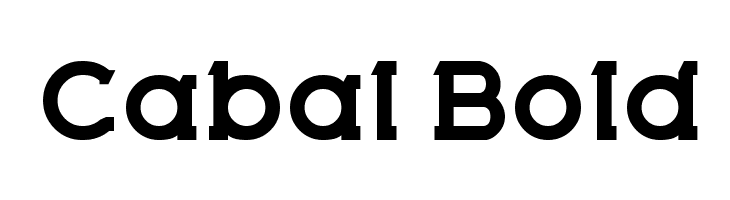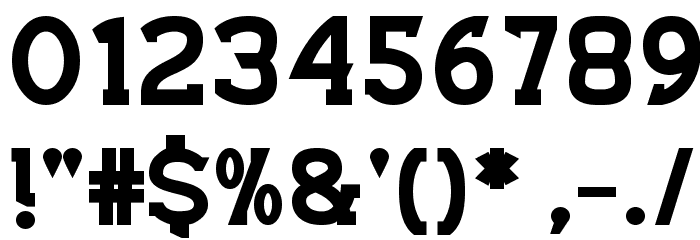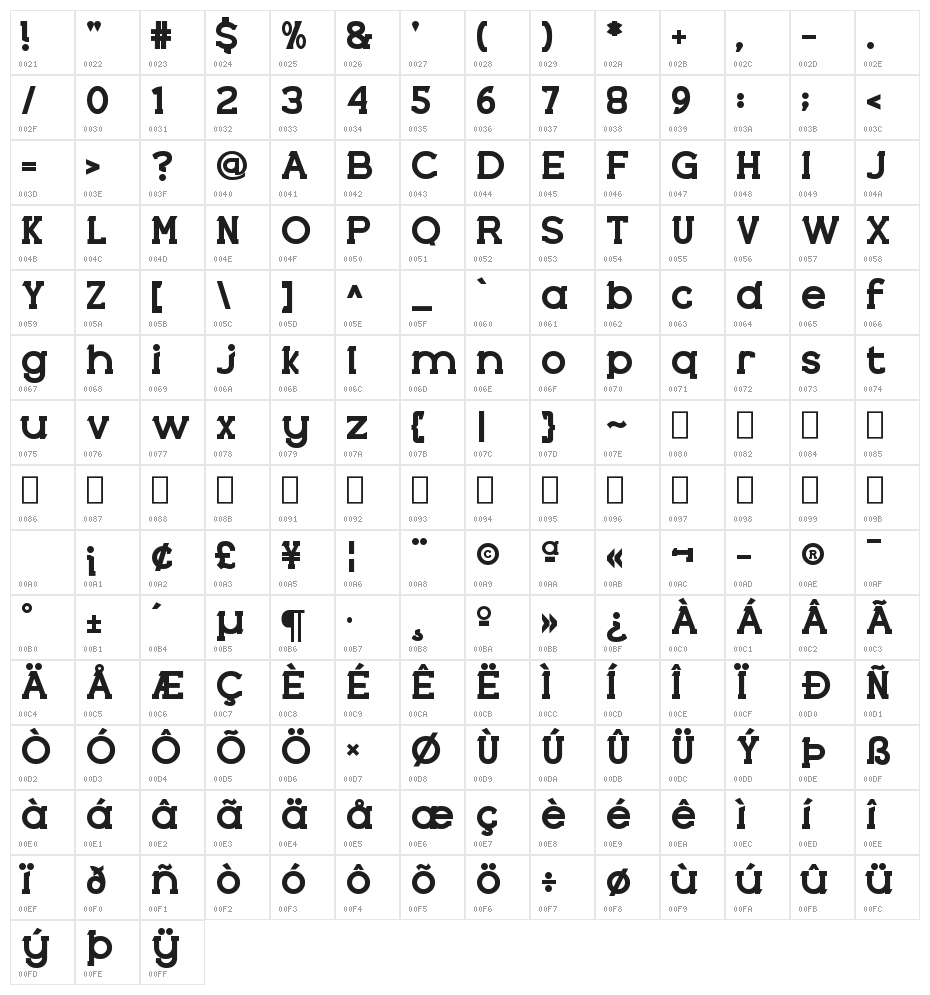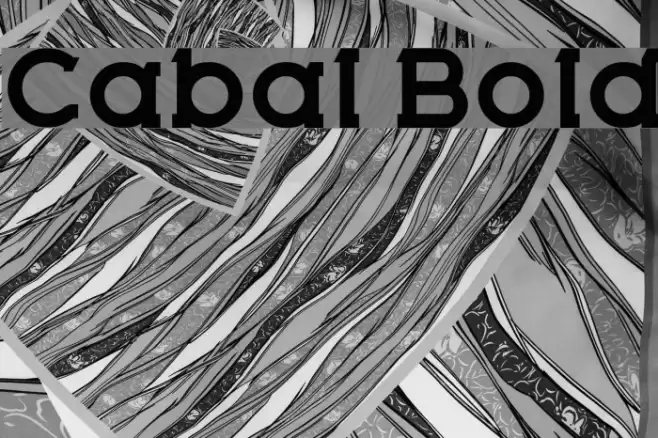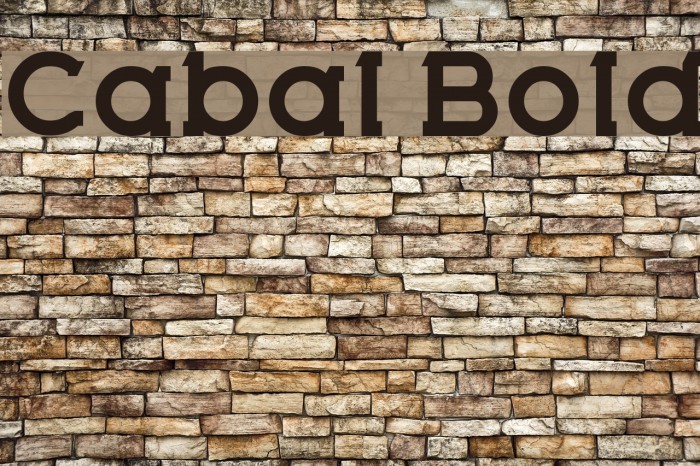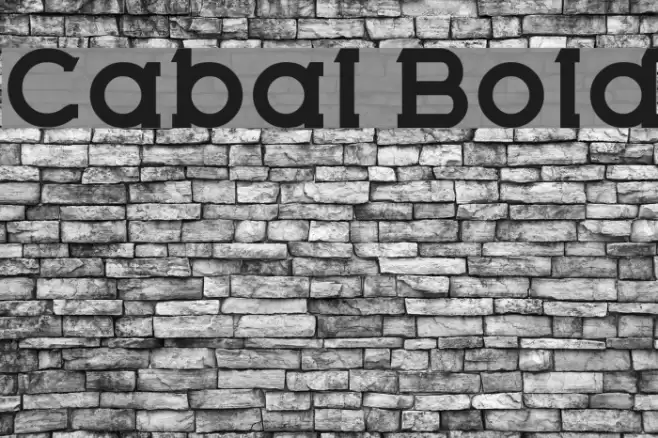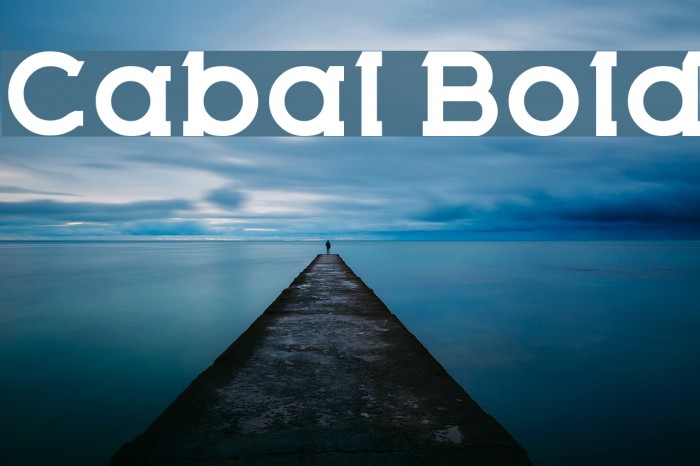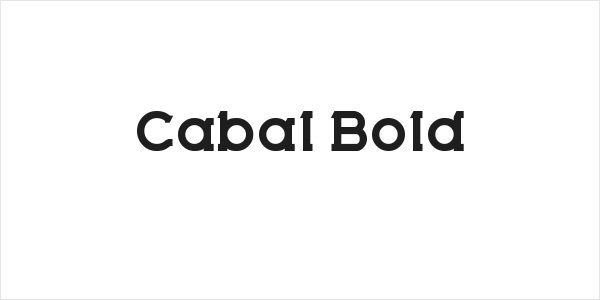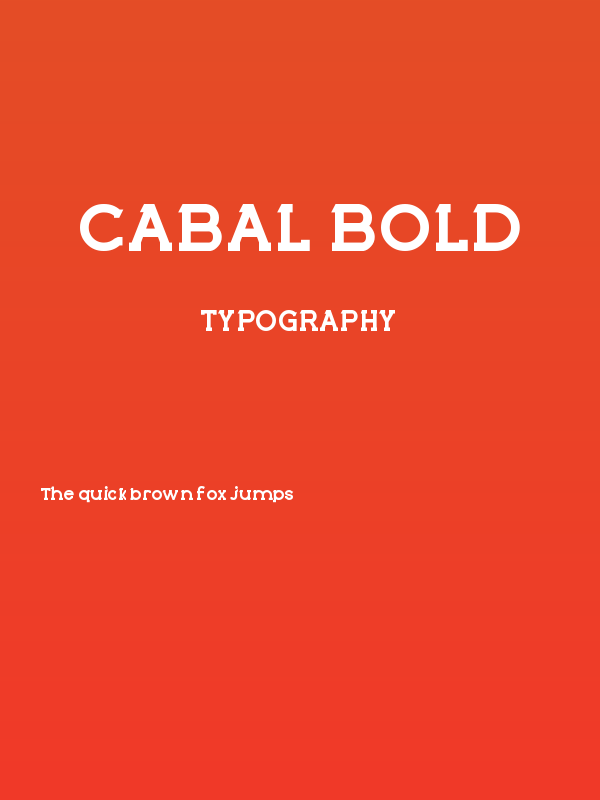
Cabal Bold Font
Cabal Bold Description
This font features a bold and robust design with strong, clean lines and a modern aesthetic. The characters are well-defined with a slight geometric influence, giving them a contemporary feel. The uppercase letters are uniform in height, while the lowercase letters maintain a consistent baseline with rounded edges that soften the overall appearance. The numerals are clear and legible, matching the boldness of the alphabetic characters. Special characters are distinct and maintain the same weight and style, ensuring consistency across all glyphs.